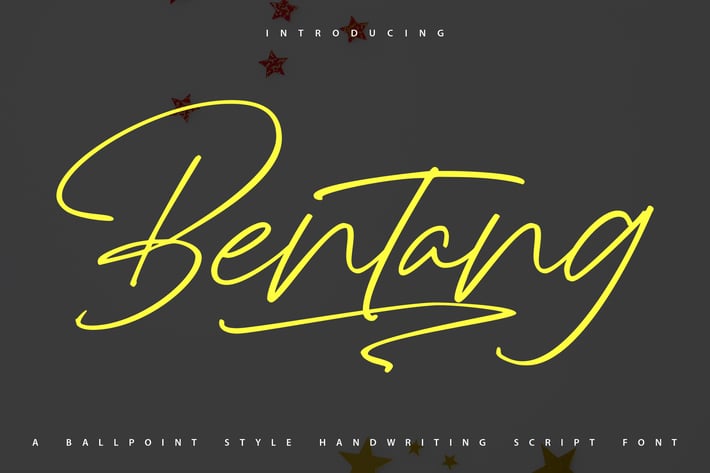
Bentang | Handwriting Script Font
Bentang | Handwriting Script Font with a calligraphy style, So beautiful on invitation like greeting cards, branding materials, business cards, quotes, posters, and more!